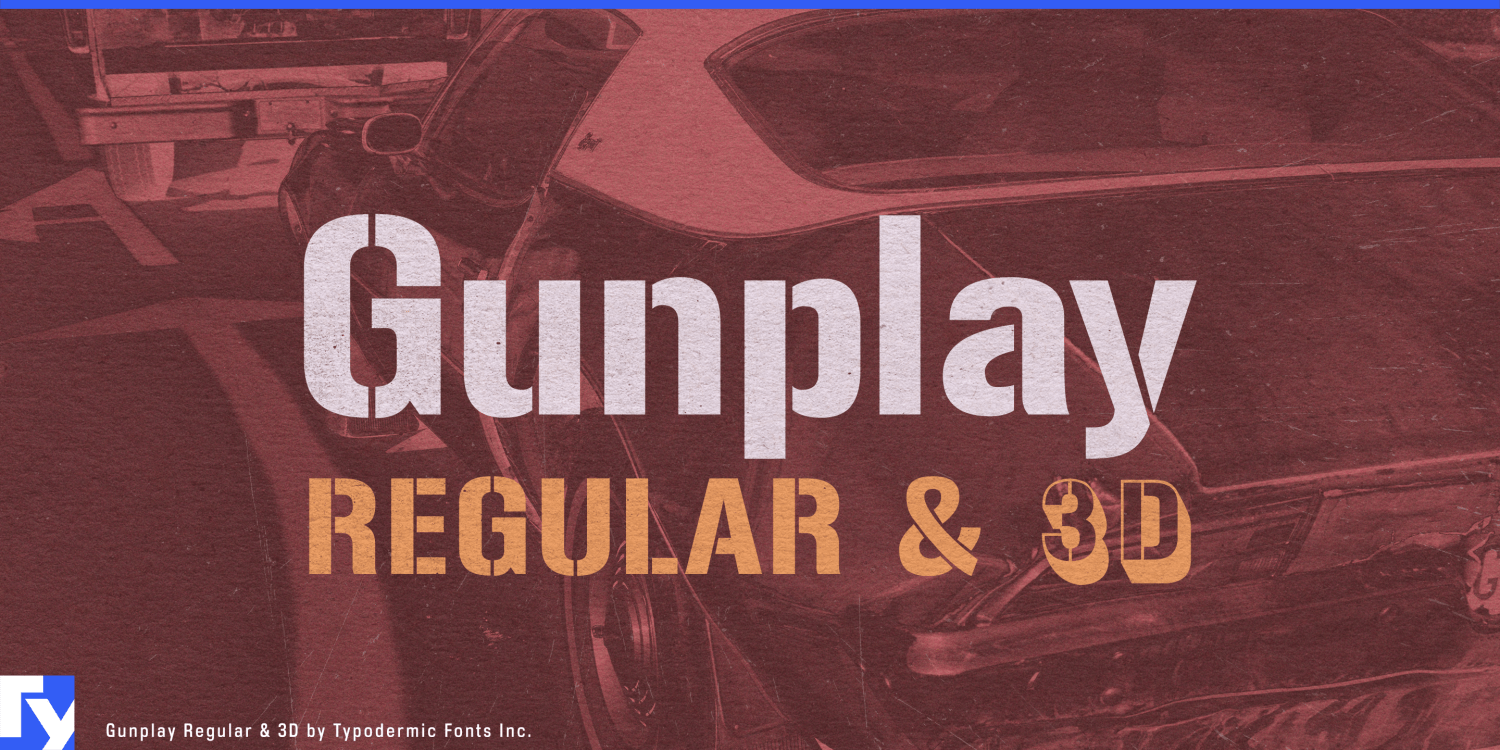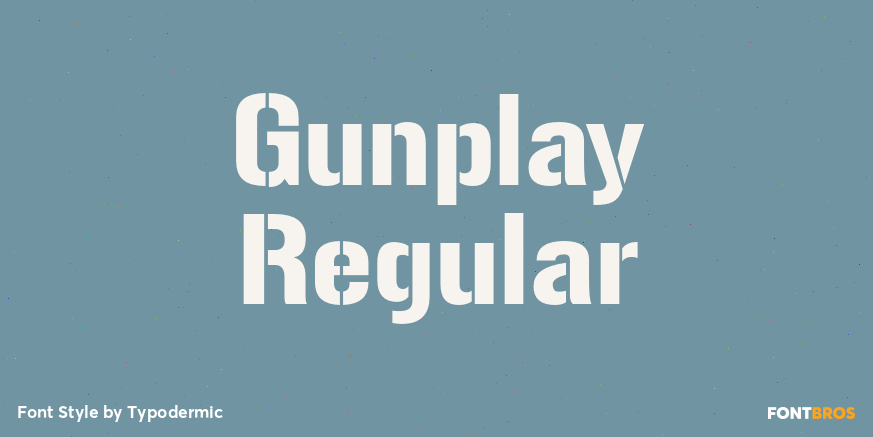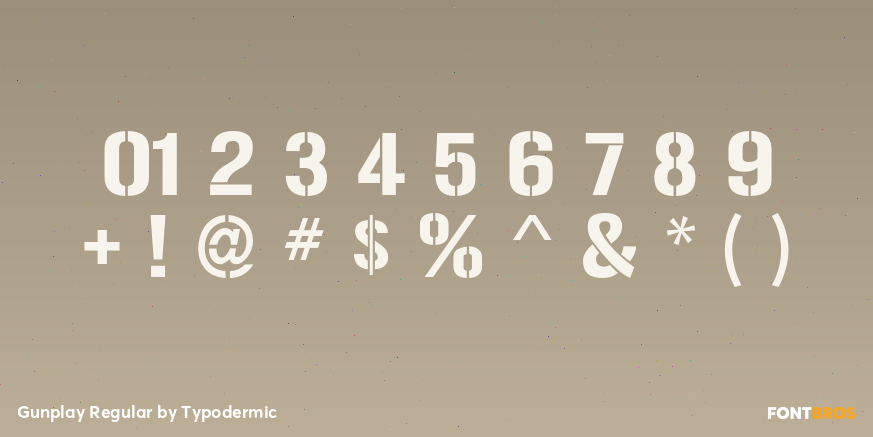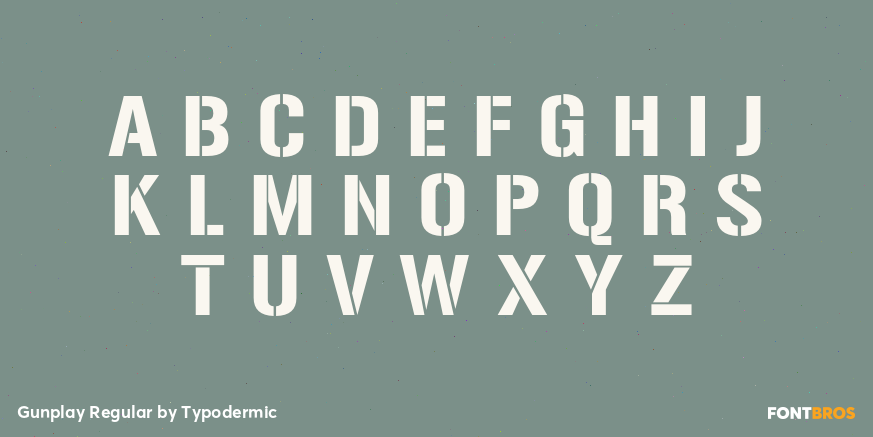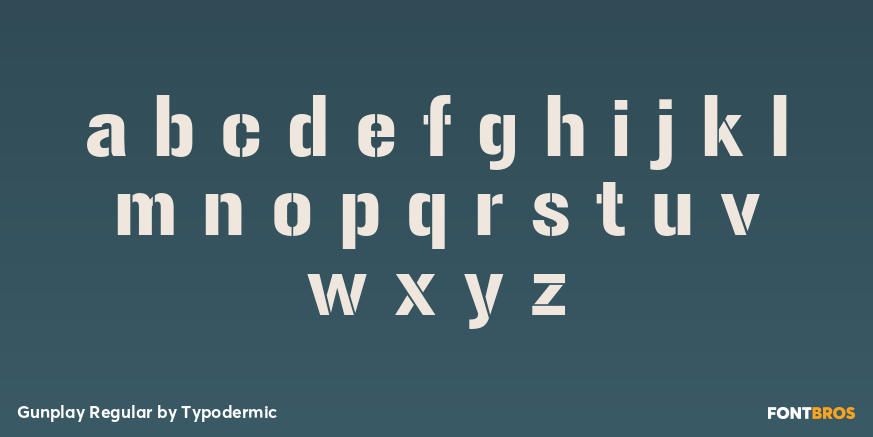
Gunplay Regular
Buy NowClean stencil lettering can look strangely artificial once it leaves the drawing board. Put it on a battered flight case, temporary worksite barrier or race-shop wall and perfectly sharp edges may be the least believable thing in the scene. Gunplay Damage and Gunplay Spraypaint carry the familiar Gunplay stencil into two distinct material conditions: one looks worn through handling and abrasion; the other looks freshly applied through a physical stencil with irregular paint deposition and overspray.
That distinction is especially useful in touring and live-event production. Concert tours, arena shows, festivals and staging companies work with flight cases, cable trunks, lighting racks, speaker crates, loading zones and backstage areas where stencil markings are part of the environment. Spraypaint can handle tour names, equipment-zone graphics, loading-dock signs and crew-area headings; Damage can carry the same visual language onto road-worn cases, warehouse photography and campaign graphics built around equipment that has already accumulated years of use.
Industrial equipment rental presents a similar problem. Mobile generators, lighting towers, compressors, excavators, site storage and portable power equipment spend their lives being transported, numbered, repainted and returned to service. Spraypaint can suggest markings applied quickly in the field, while Damage gives equipment-family campaigns, depot graphics and trade-show displays the appearance of repeated handling and exposure.
Warehouse automation and material handling move the same idea into contemporary industry. Autonomous forklifts, pallet systems, yard-management platforms and industrial robotics operate among loading bays, racks, reusable containers and battered transport equipment. Their corporate identities may be highly polished, but marketing sometimes needs to acknowledge the physical environment where the technology works. Damage can supply that industrial layer for demonstration graphics, trade-show zones and equipment-series names, while Spraypaint can reference temporary crate, floor and loading-bay markings.
Motorsport provides another useful setting, particularly around the support infrastructure. Transporters, pit equipment, tire stacks, tool cases, paddock barriers and race-shop walls naturally accumulate temporary markings and wear. Spraypaint suits the freshly marked paddock; Damage works with endurance racing, rally service areas and workshop photography.
Regular provides the clean manufactured version of the Gunplay stencil. Spraypaint makes the same forms appear freshly applied in the field. Damage moves them further into abrasion, handling and weather. The underlying structure stays familiar while the apparent condition of the lettering changes.